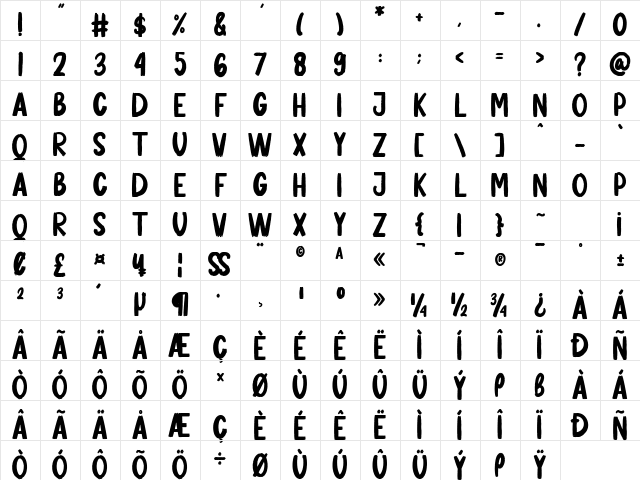
Banana Pastry Regular
Designer: Muhamad Fikry Nuralif
Complete Banana Pastry Regular glyph index. Displaying only characters natively supported by Banana Pastry Regular font.
Design Context for Banana Pastry
Banana Pastry is a composed and adaptable typeface that performs quietly and consistently across a wide range of design contexts.